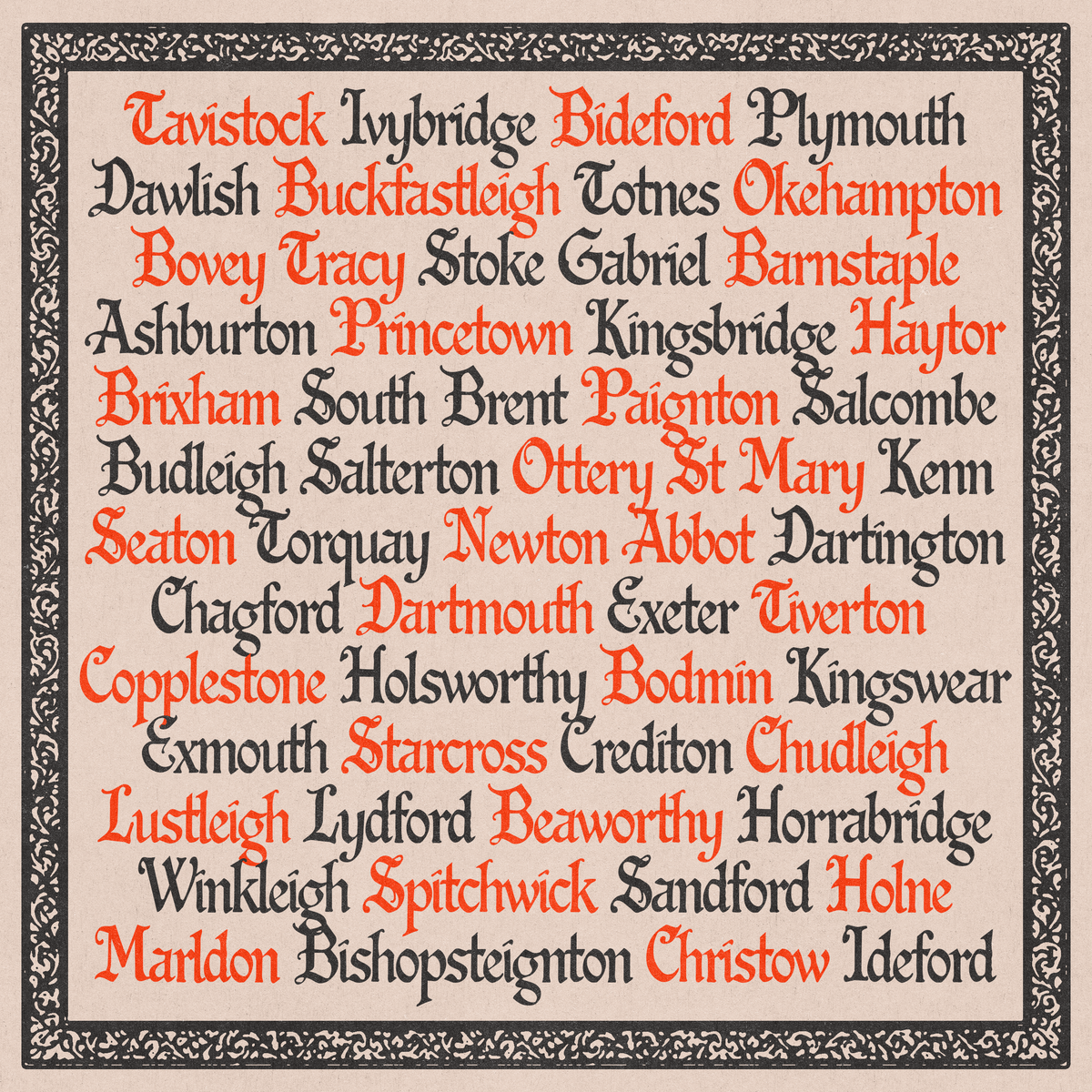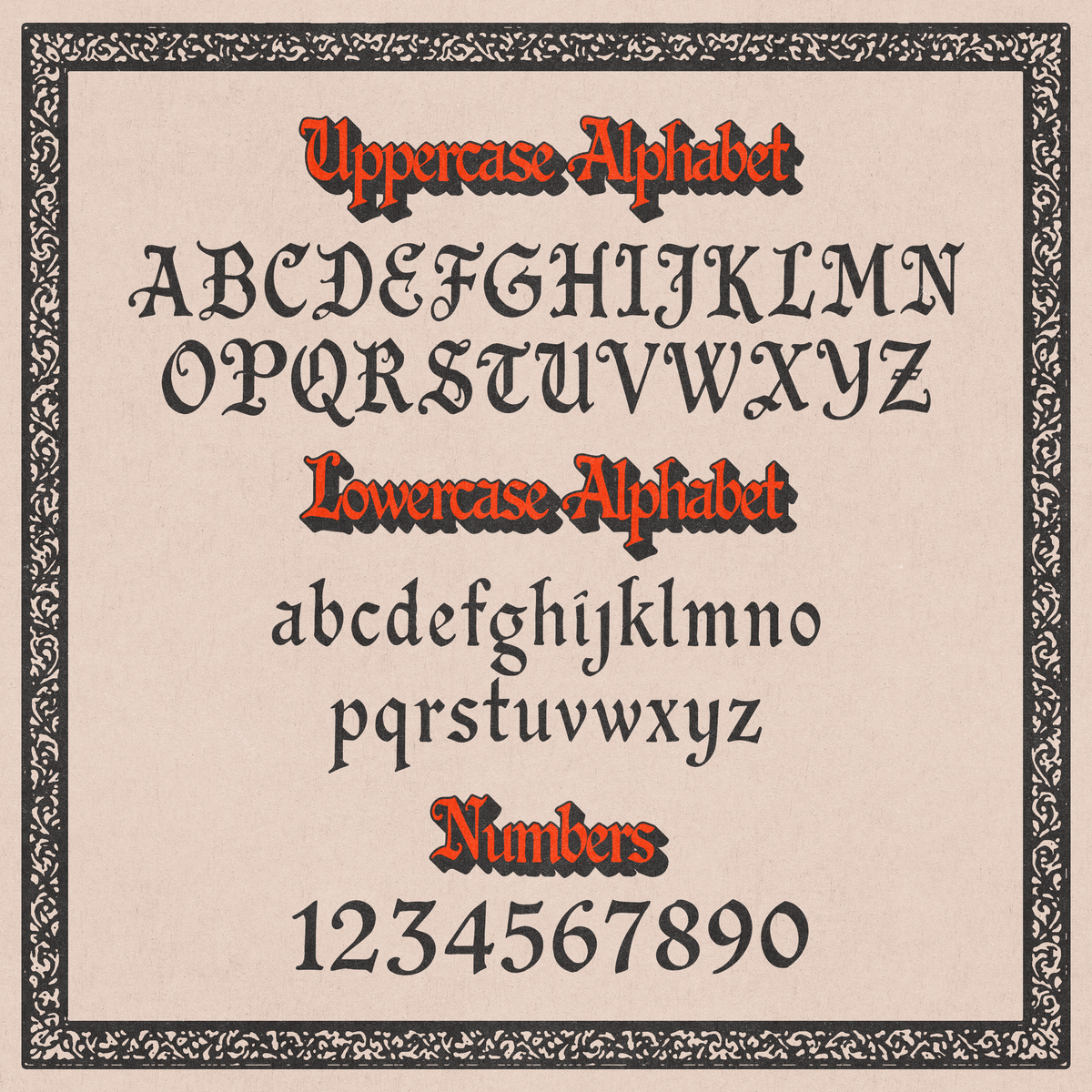
Bodmin Beast is my new hand drawn Olde English display font! Inspired by my home county of Devon, England and the mythical folklore surrounding it. Perfect for branding, logos, merchandise, posters, menus, social media posts and so much more.
Full alphabet (Uppercase and Lowercase)
Numbers and essential symbols